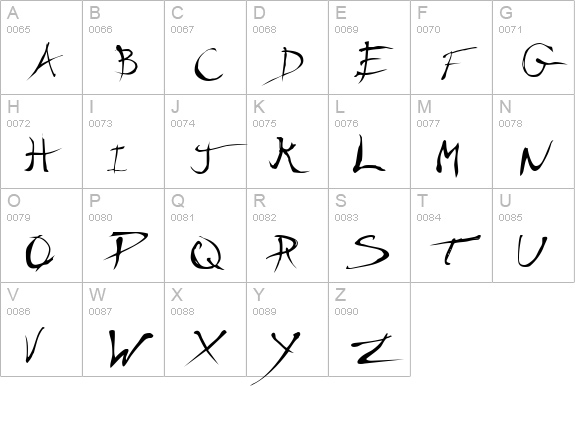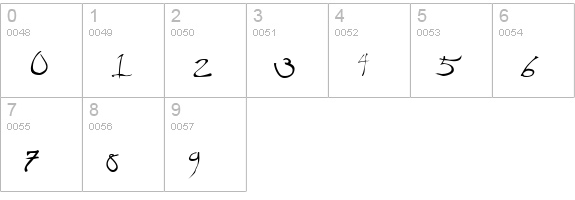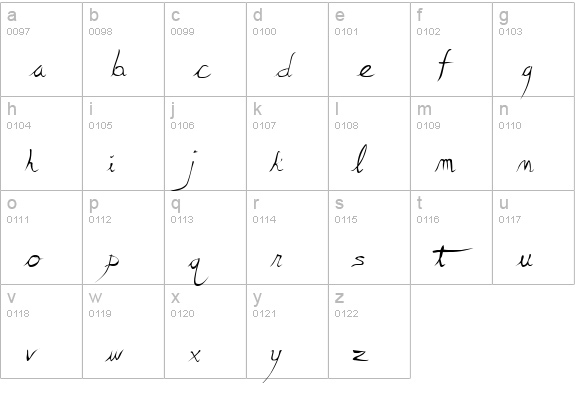
Scratchy Mess Font Details
Introducing Scratchy Mess font, a bold and unique typeface that adds a touch of unpredictability to your designs. This one-of-a-kind font is perfect for those looking to make a statement and break free from the traditional norms of typography. With its scratchy and messy appearance, Scratchy Mess font exudes a sense of creativity and playfulness. Each letter is carefully crafted to have an imperfect and hand-drawn feel, giving your designs an authentic and organic look. Whether you're working on a poster, logo, or any other creative project, Scratchy Mess font will surely catch the eye and leave a lasting impression. Its bold and dynamic characters demand attention, making it the ideal choice for headlines, titles, and attention-grabbing elements. The best part? Scratchy Mess font is completely free! Yes, you read that right. This incredible font is freely available to download at FontsMarket.com. So, there's no need to worry about breaking the bank to add this gem to your font collection. Don't miss out on the opportunity to enhance your designs with Scratchy Mess font. Let your creativity soar and make a bold statement with this unique and freely accessible typeface. Download it today at FontsMarket.com and start adding a touch of chaos and excitement to your projects.